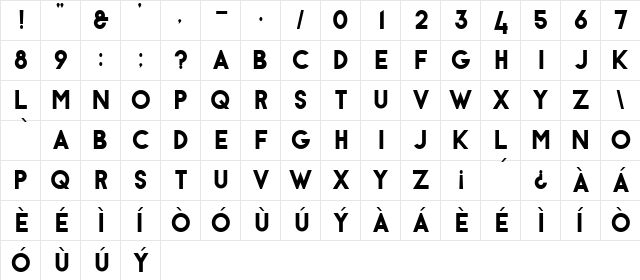
Antraste Regular
Designer: Marco Ballar￿
Design Context for Antraste
Antraste is a composed and adaptable typeface that performs quietly and consistently across a wide range of design contexts.